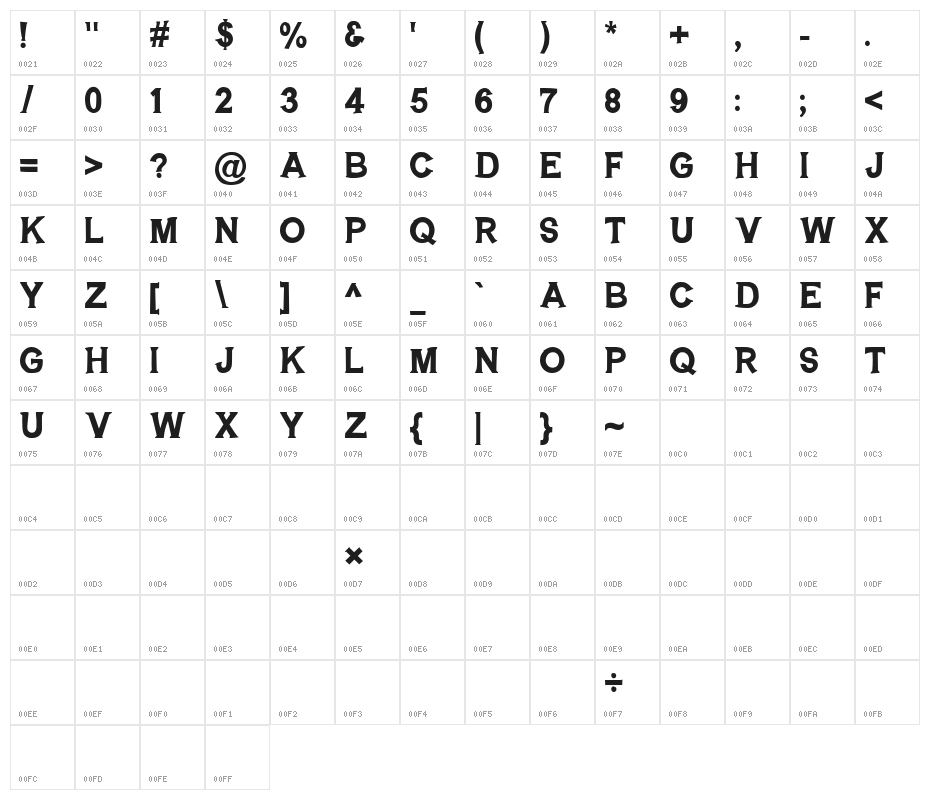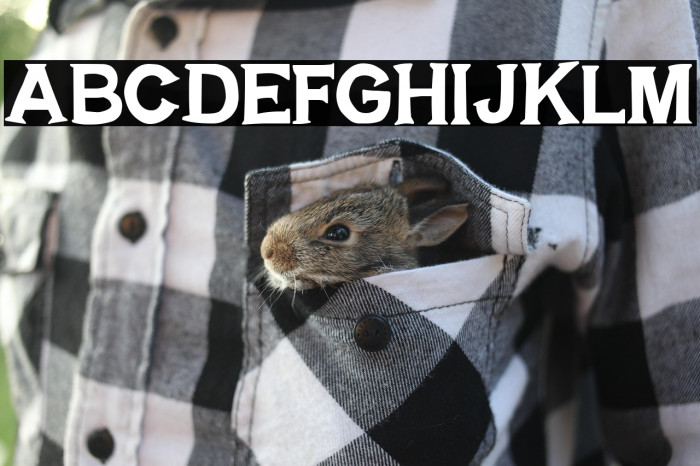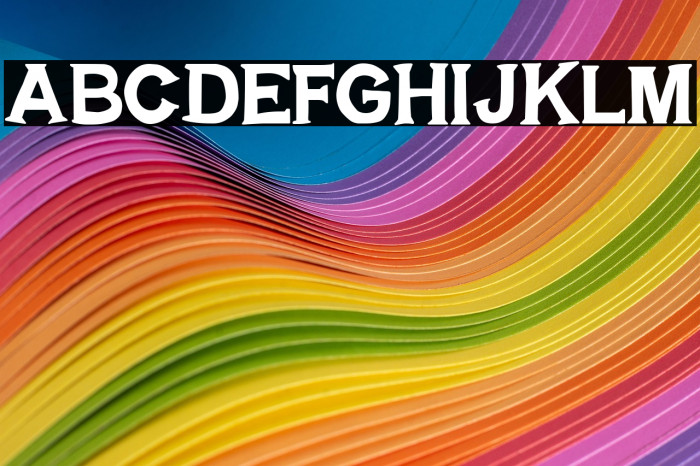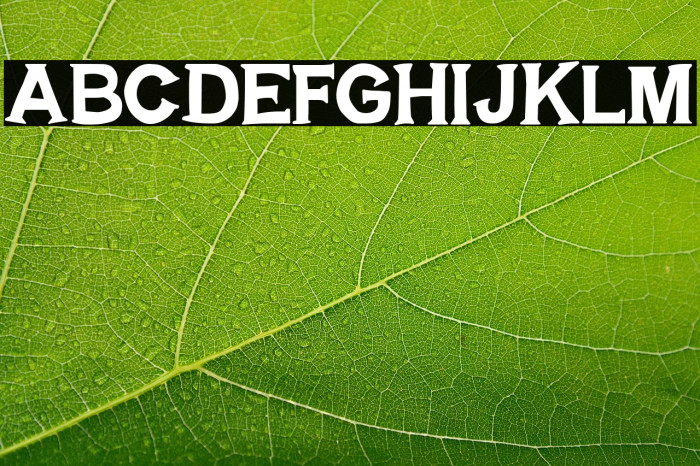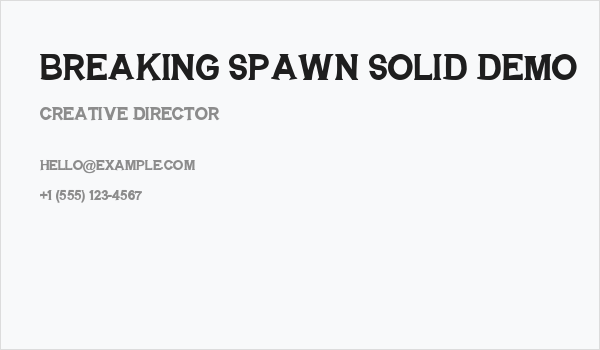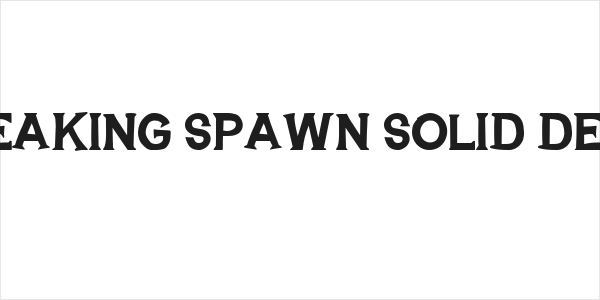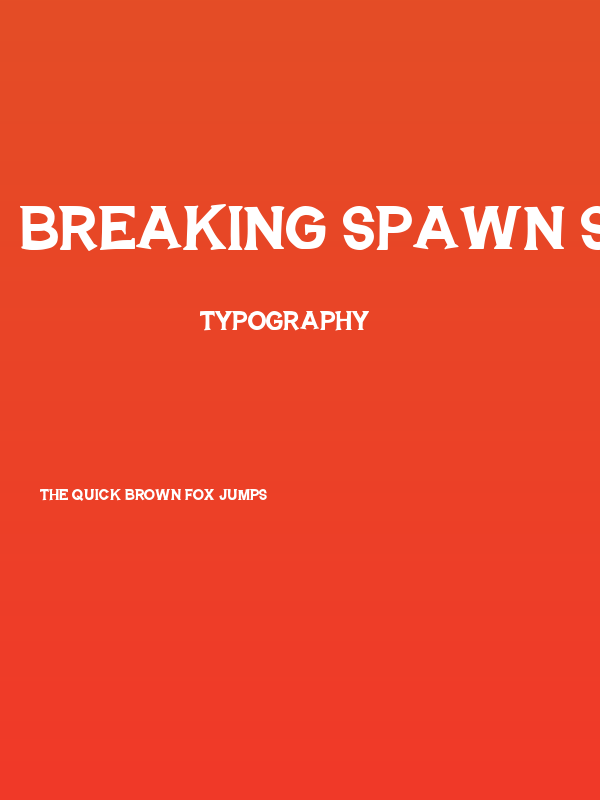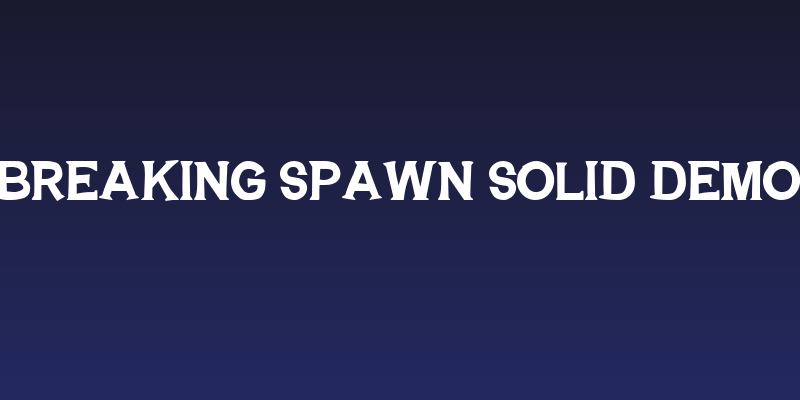
BREAKING SPAWN SOLID DEMO Font
BREAKING SPAWN SOLID DEMO Description
This font features bold, dramatic characters with a strong presence. The uppercase letters are robust and slightly condensed, giving a sense of power and authority. The lowercase letters maintain the same boldness, ensuring consistency across the typeface. The numbers are equally bold, with a slight slant that adds a dynamic feel. Special characters are designed to match the overall bold aesthetic, making them stand out effectively. The font's style is reminiscent of comic book lettering, with a playful yet assertive tone. It is well-suited for attention-grabbing headlines or titles, where impact is essential. The strokes are thick and uniform, providing a solid and cohesive look. The spacing between characters is normal, allowing for clear readability while maintaining the font's bold characteristics.
| Proposed Projects | Ideal for comic book titles, posters, branding materials, and any project requiring a bold, impactful typeface. |